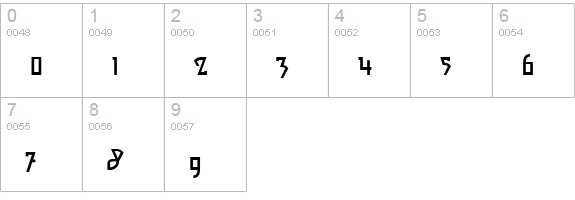
FuturexBob Font Details
Introducing FuturexBob font, an innovative and futuristic typeface designed to bring a modern touch to your projects. With its sleek lines and contemporary appeal, FuturexBob is perfect for branding, advertising, and digital designs that aim to stand out from the crowd. This font offers a dynamic and edgy look that is sure to captivate your audience. Whether you're creating a logo, website, or social media graphics, FuturexBob will help you make a bold statement. And the best part? FuturexBob is available for free download at FontsMarket.com! Don't miss out on this opportunity to enhance your designs with this cutting-edge font. Download FuturexBob today and take your projects to the next level.